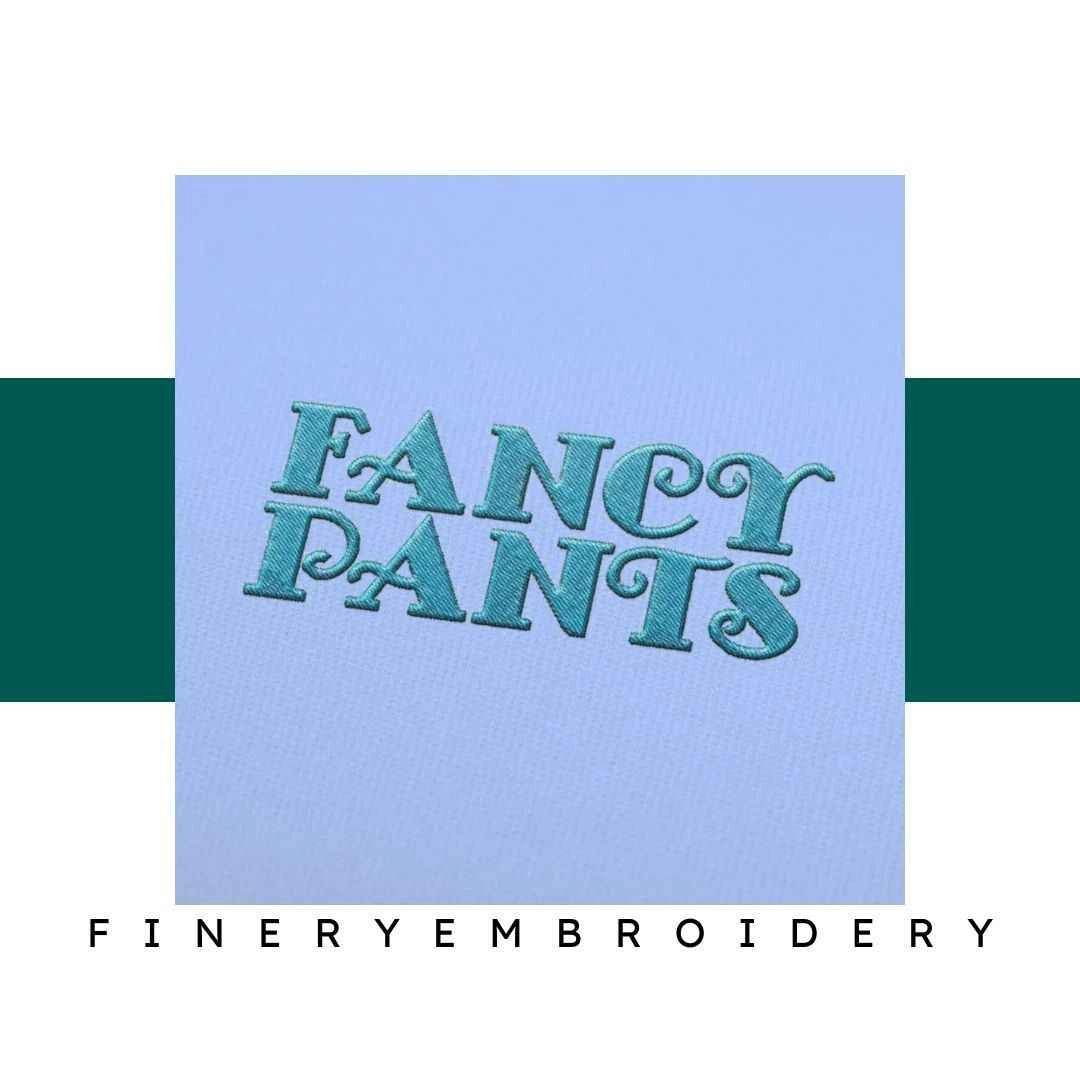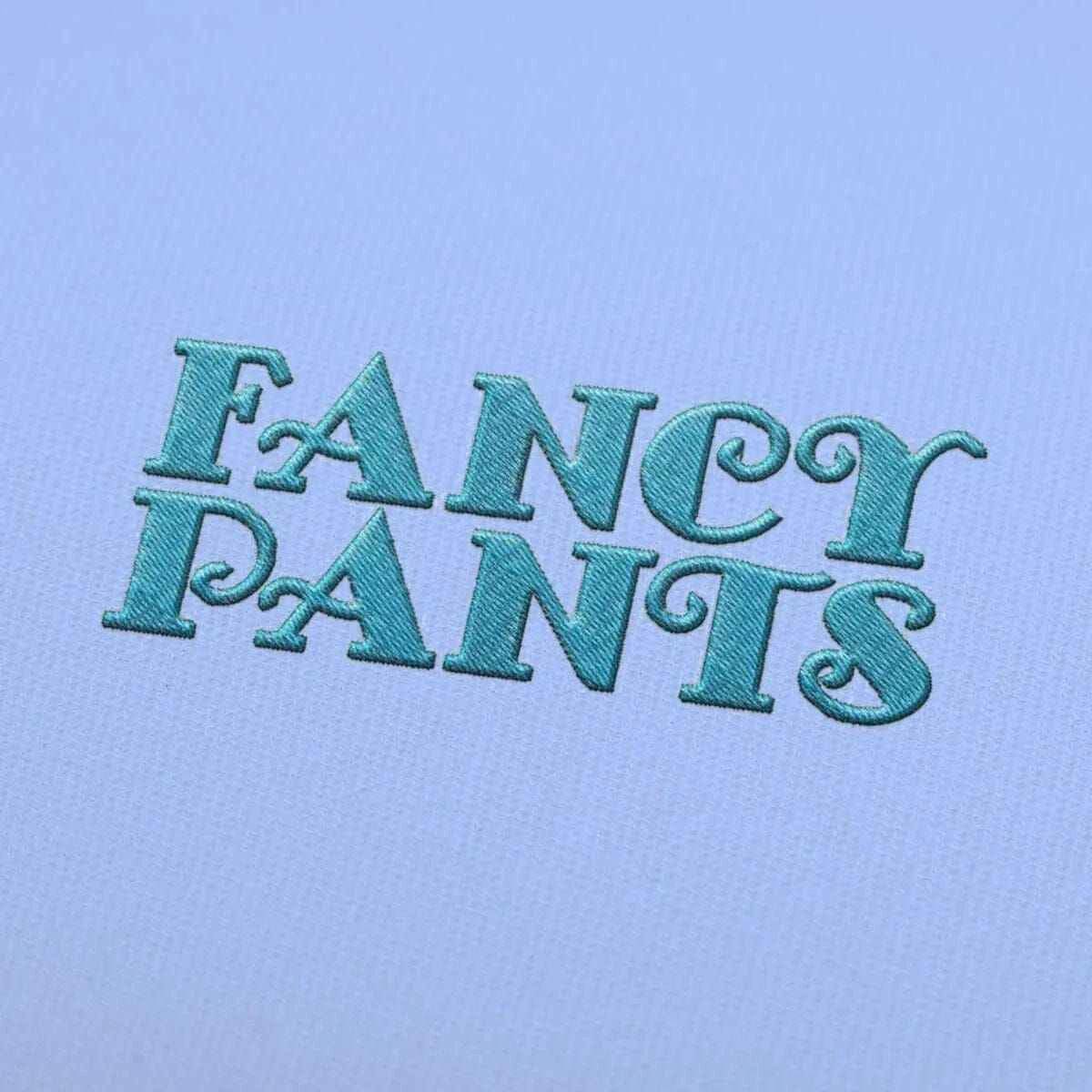
Transform your embroidery projects into works of art with the Fancy Pant Embroidery Alphabet Font Set – where elegance meets creativity!
Introducing the Fancy Pant Embroidery Alphabet Font Set, a meticulously crafted collection designed for embroidery enthusiasts who appreciate sophistication. This unique font set is perfect for adding a refined touch to any project, allowing you to express your creativity effortlessly.
Each letter is delicately designed, showcasing intricate details that ensure a polished appearance in your finished pieces. The font set is versatile, making it ideal for both personal and professional embroidery projects. Whether you're creating monograms, custom gifts, or decorative embellishments, this set enhances every creation with its elegant aesthetic.
Imagine the possibilities with the Fancy Pant Font Set! Use it to personalize garments, home decor, or accessories. It's perfect for creating stylish labels, wedding decor, or even unique business branding. The elegance of this font will surely captivate anyone who sees your work, making each piece truly special.